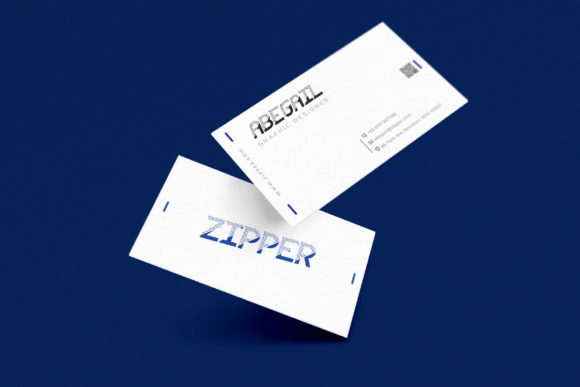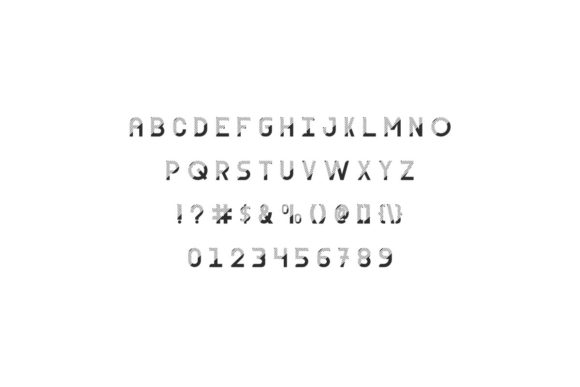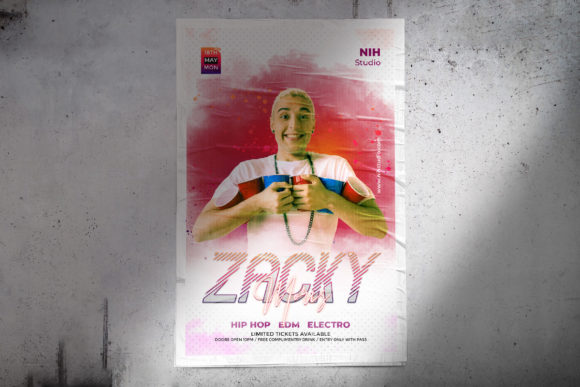
Introduction to Offsett Font
Imagine you’re brainstorming ideas for a futuristic branding project, and suddenly, the perfect font pops into your mind – one that’s bold, eye-catching, and futuristic. That’s exactly what happens when you come across the Offsett Font. This unique display font is a game-changer for designers looking to create high-quality visual identities that stand out from the crowd.
With its sleek lines and geometric shapes, Offsett Font is the perfect design resource for creative projects that require a touch of futurism. Whether you’re designing a logo, business card, or signage, this font is sure to elevate your design to the next level. And the best part? It’s available for free download, making it an accessible addition to any design project.
Key Features of Offsett Font
- Unique, modern design aesthetic that can add a touch of sophistication to any creative project.
- Perfect for designers, artists, and writers looking for a high-quality, versatile font to enhance their work.
Honest Review: Offsett Font
I recently stumbled upon the Offsett Font while searching for a unique design resource for my next creative project. The font’s quirky and playful style caught my attention, and I was excited to give it a try.
- ✨ High-quality design: The Offsett Font features crisp, clear lines and a well-balanced aesthetic that makes it perfect for a variety of design applications.
- ⚠️ Limited character set: The Offsett Font has a relatively small character set, which may be a limitation for designers who need to typeset lengthy text.
- ⚠️ Not ideal for small text: The font’s quirky style can make it difficult to read when used for small text, so it’s best to use it for headlines or display text.
Overall, I’m impressed with the Offsett Font’s unique design and high-quality production. While it may have some limitations, it’s definitely a valuable addition to any designer’s toolkit, especially for creative projects where a touch of whimsy is needed.
Common Use Cases for Offsett Font
Offsett Font is perfect for creating eye-catching titles, headings, and other design elements for your project.
Use it to add a touch of sophistication and elegance to your design work.